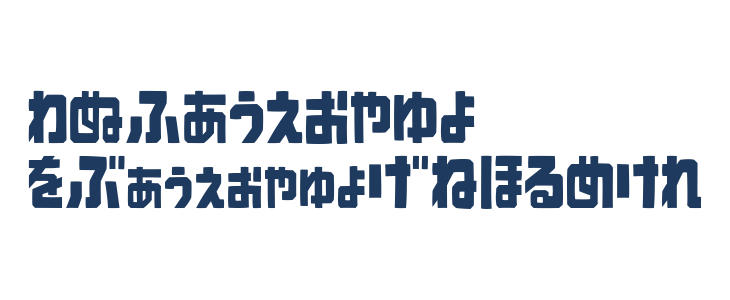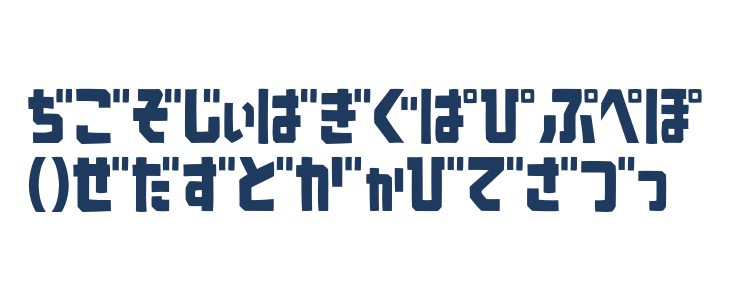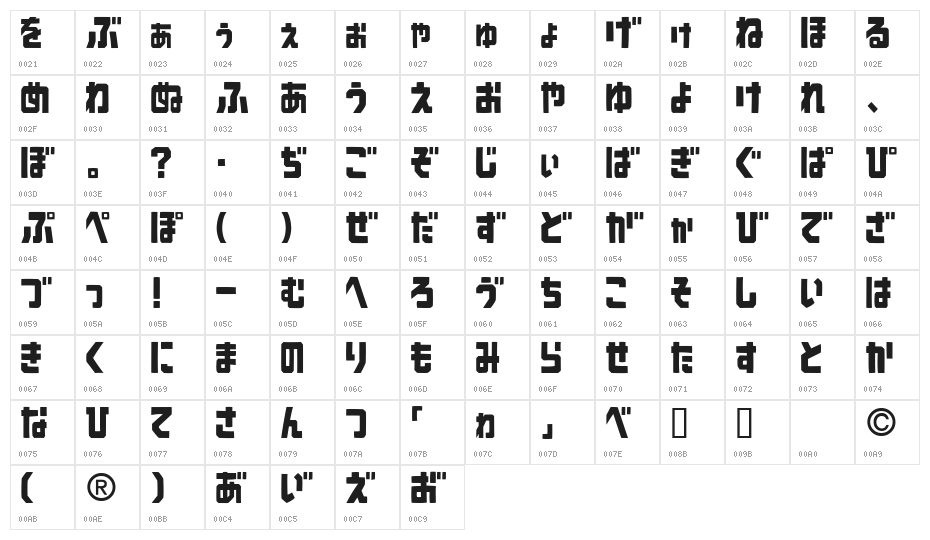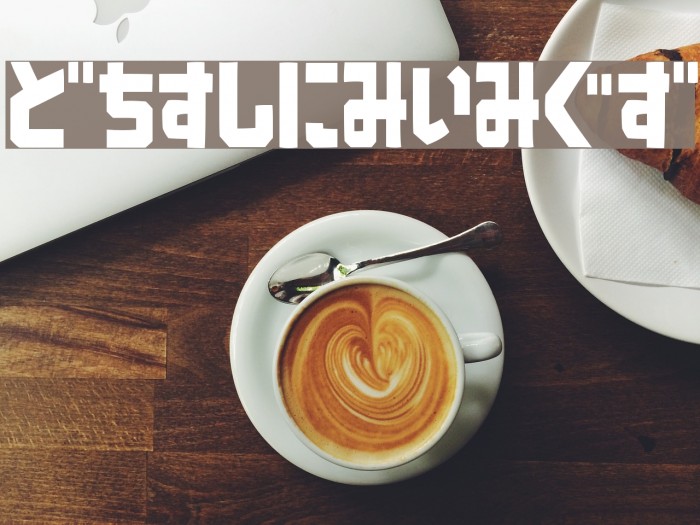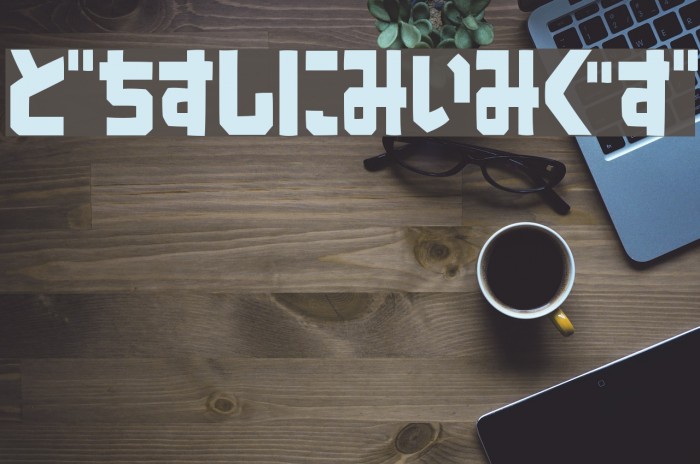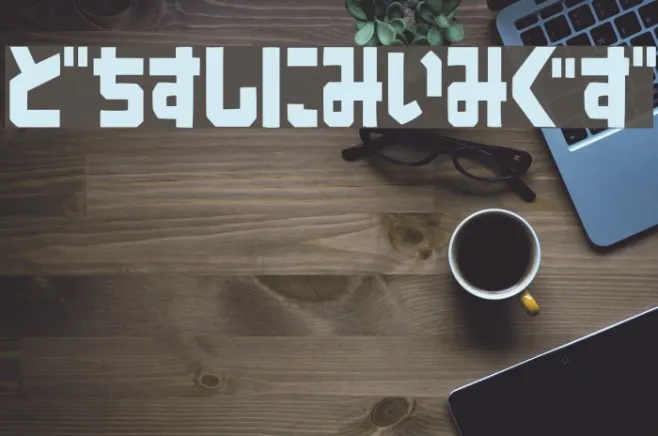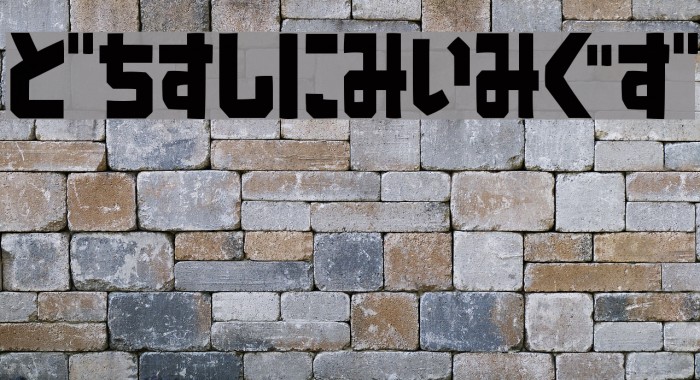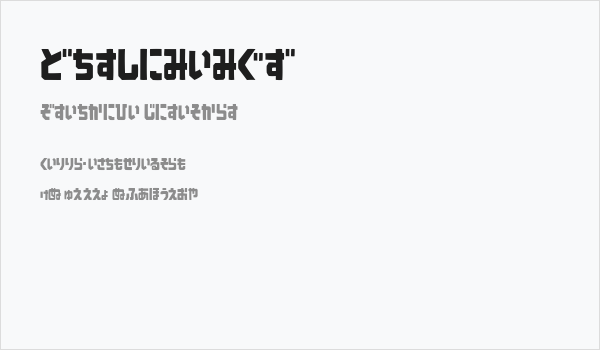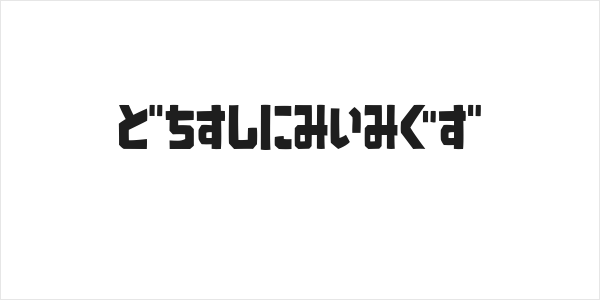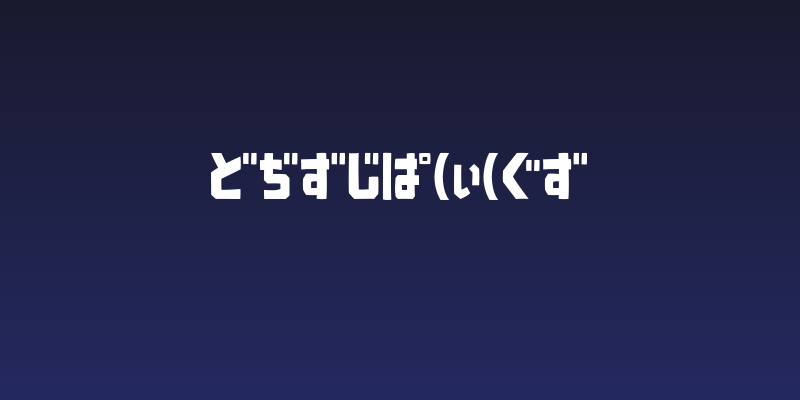
SardinenHR Font
SardinenHR Description
This font features bold, geometric characters with a strong presence. The strokes are thick and uniform, giving it a robust and impactful appearance. The design is modern and clean, with a slight industrial feel. The characters are well-defined, with sharp angles and edges that contribute to its boldness. The font is highly legible, making it suitable for various applications where clarity is essential. Its distinct style makes it stand out, while the consistent weight across characters ensures a cohesive look.